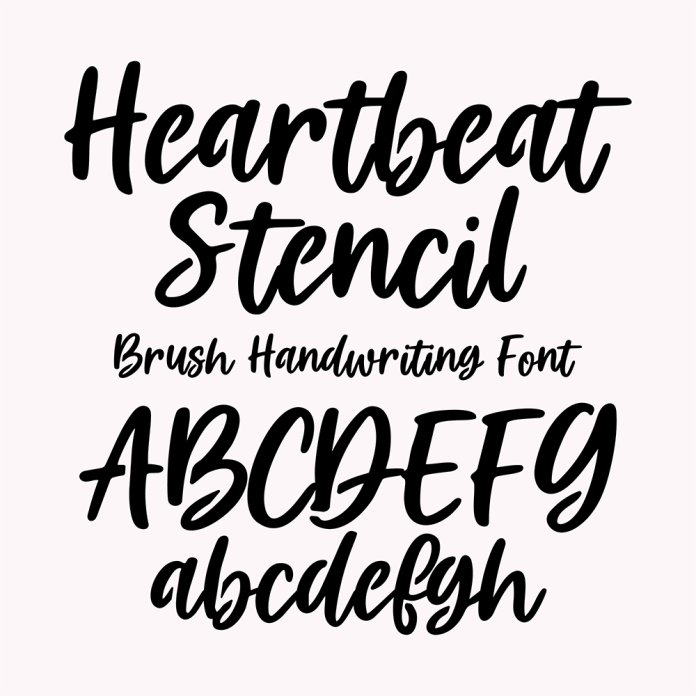
BFC Heartbeat Stencil Casual Brush Script Font is a unique and versatile font design that combines elements of stenciling and casual brush script. Its key features include a modern and stylish aesthetic, with a playful touch. This font is perfect for adding a personal and artistic flair to various design projects such as posters, invitations, and social media graphics.